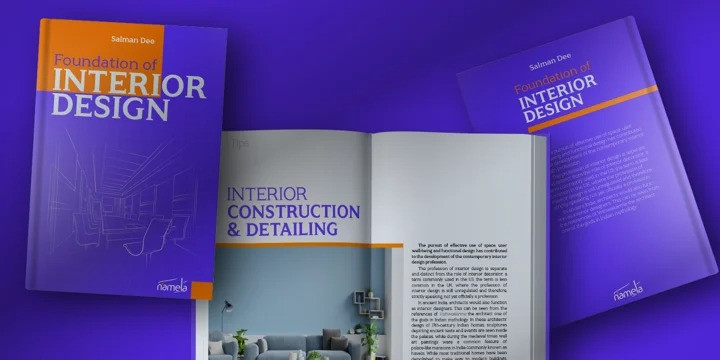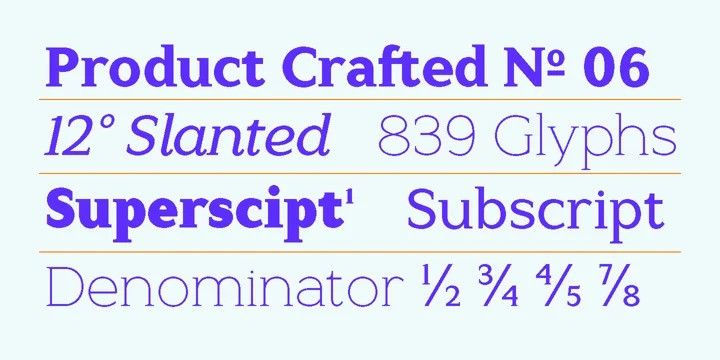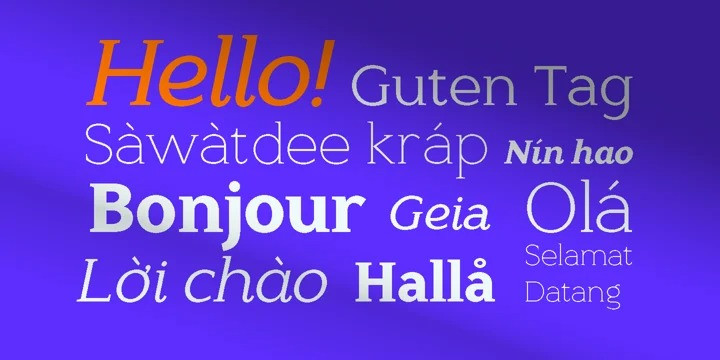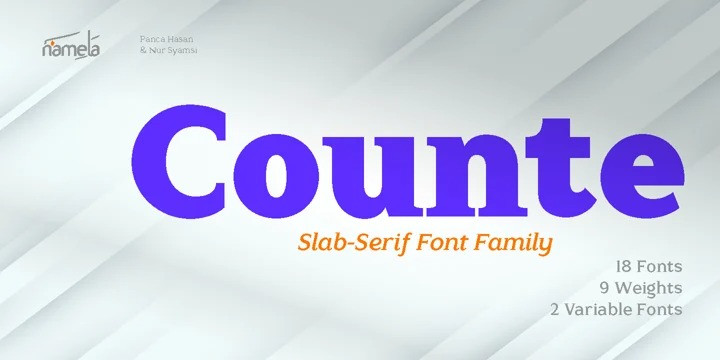
Counte Font
Counte Serif Font
This is serif collection font created by Namela with natural movement make looks elegant and classy. It resulted in a modern slab serif family designed with symmetrical bracketed serifs for uprights and cursive serifs for Italics. Crafted with low contrast strokes, it makes this font versatile and can be used for text and printing.
Counte contains many International diacritics and OpenType Features. It consists of 9 weight, going from Thin to Black with matching italics.